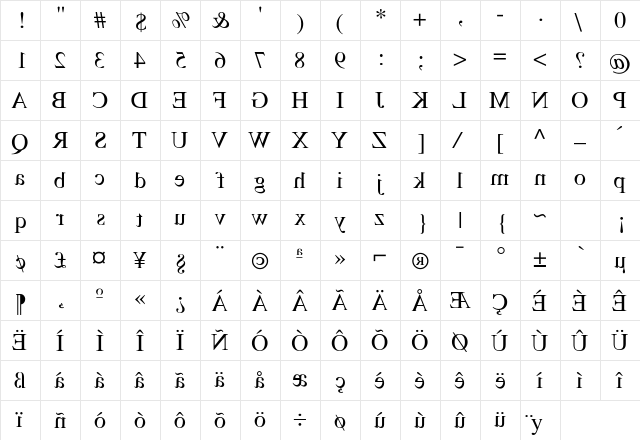
Brigadoon Regular
Design Context for Brigadoon Typeface
Brigadoon is a composed and adaptable typeface that performs quietly and consistently across a wide range of design contexts.